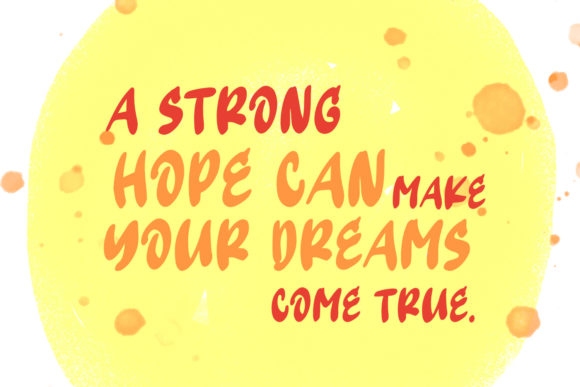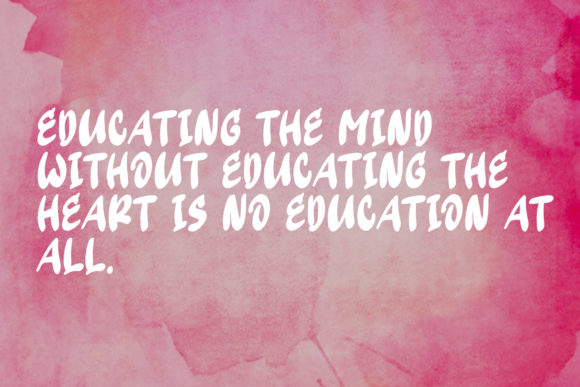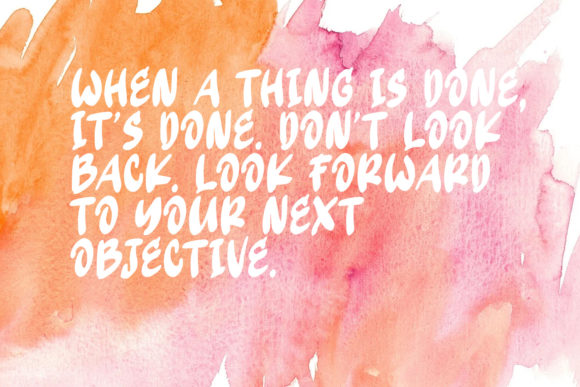
Introduction to Emperor Ninko Font
Emperor Ninko is a cool and urban styled display font.
This font is suitable for designs such as t-shirts, sportswear, logos, advertisements, clothing, and more .